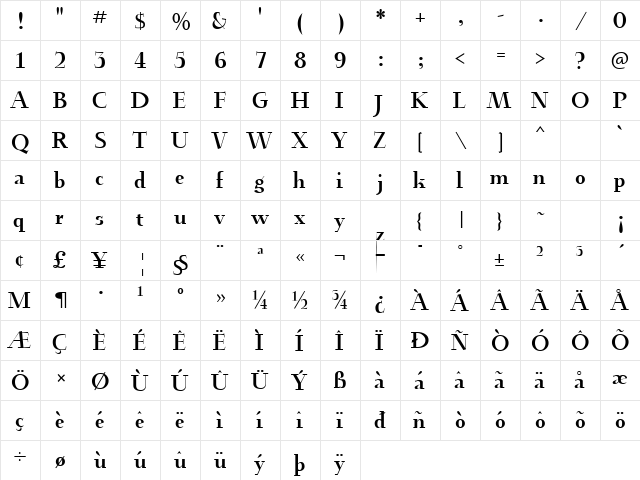
Euroika Bold
Design Context for Euroika Typeface
Euroika offers clean, dependable letterforms without strong stylistic allegiance, making it a practical choice for designers who need flexibility. The heavy weight commands attention and anchors typographic hierarchies.